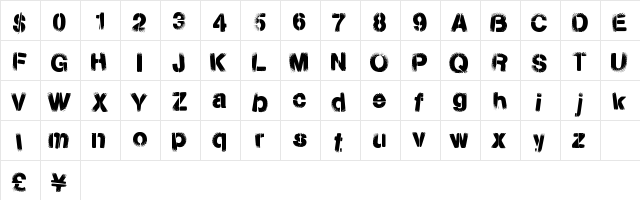
ToxicPowers Regular
Design Context for ToxicPowers Typeface
ToxicPowers brings high-energy athletic personality to the page — its confident, muscular forms are built for impact.
A natural choice for gym brands, fantasy sports, jersey lettering, and action-driven headlines.
Font Pairing: Use alongside a condensed or geometric sans for supporting copy — keep the pairing bold, functional, and free of ornament.
Pro Tip: Use ToxicPowers in all-caps headlines where its athletic energy can fully express itself. Pair with a solid, simple sans for supporting text.